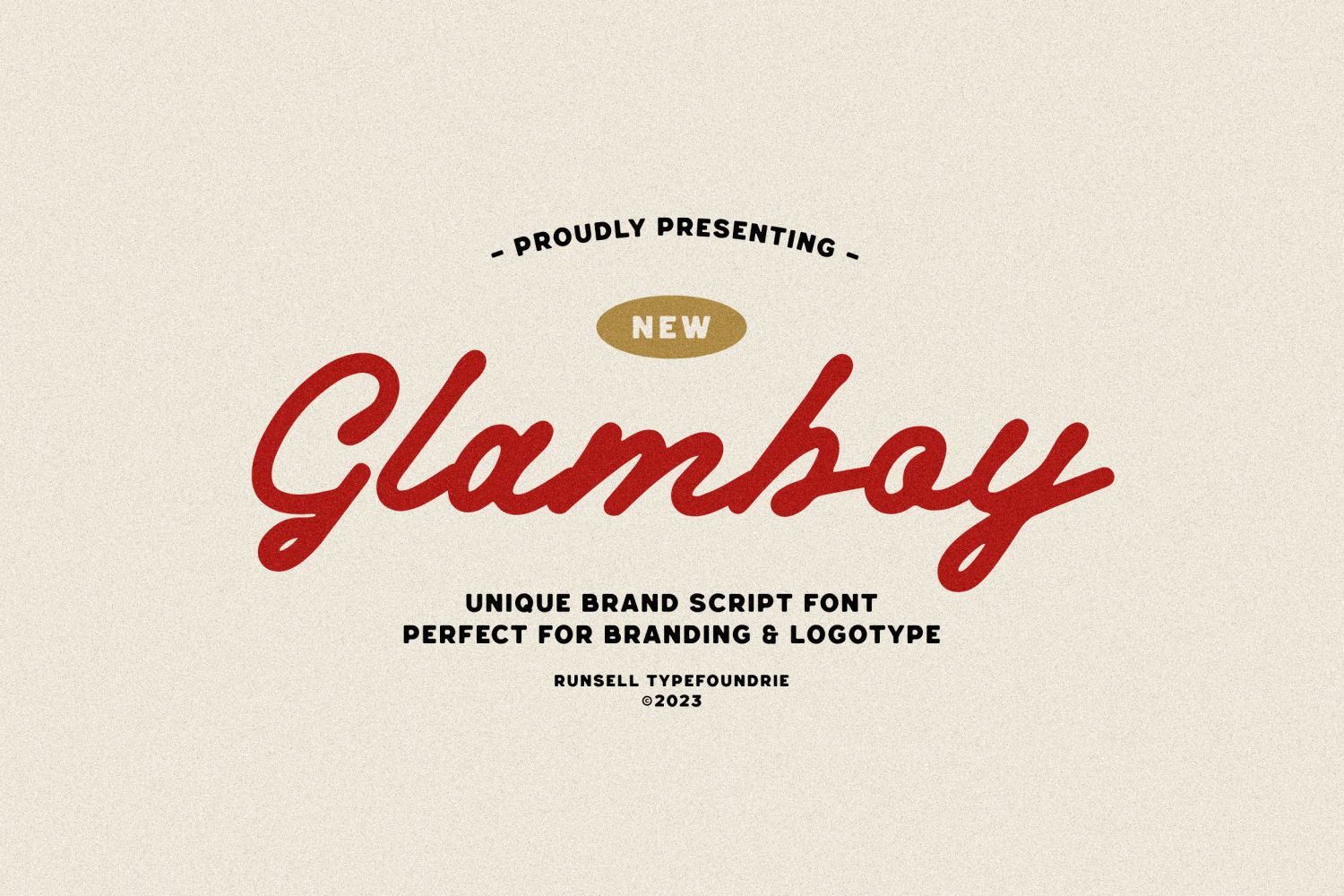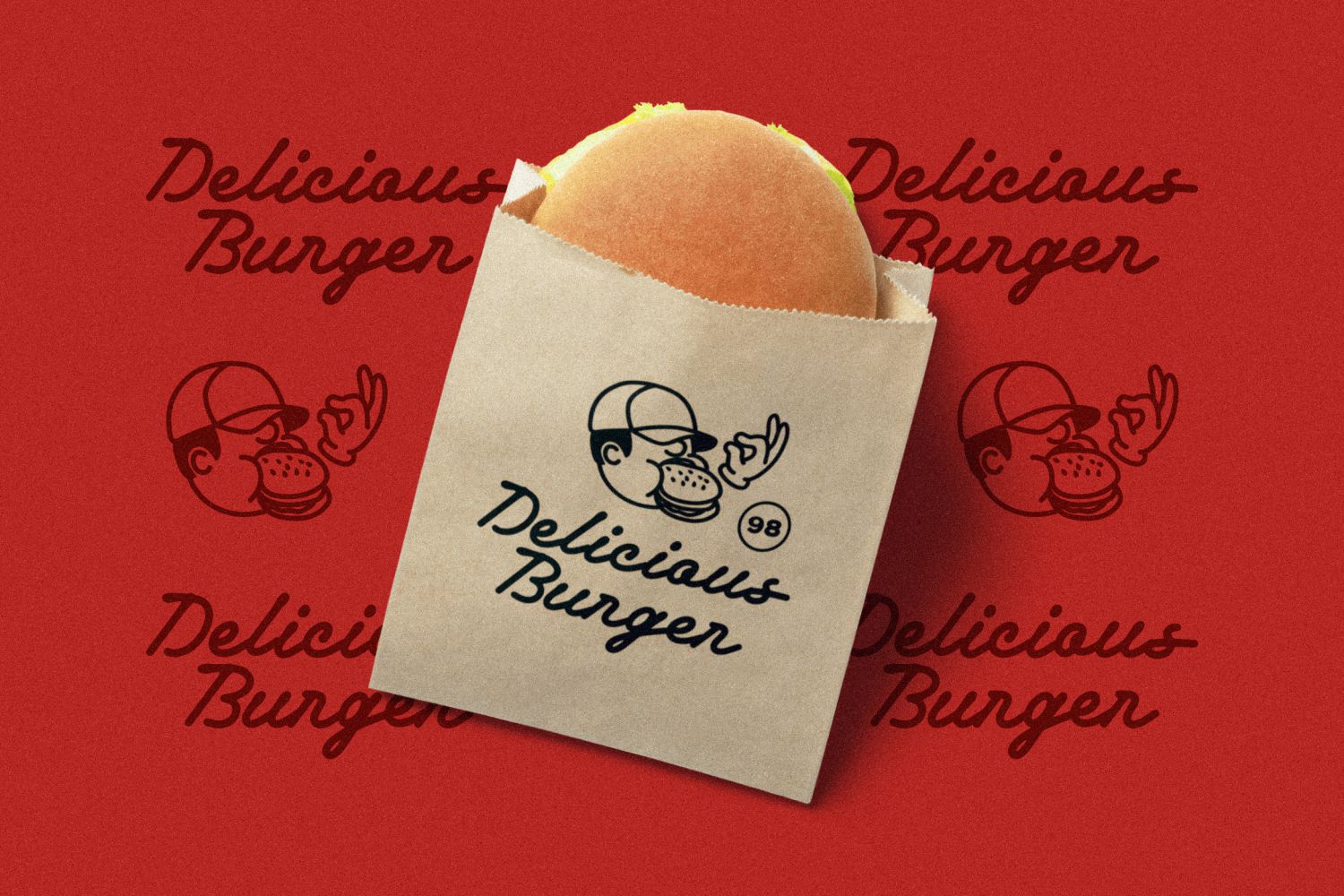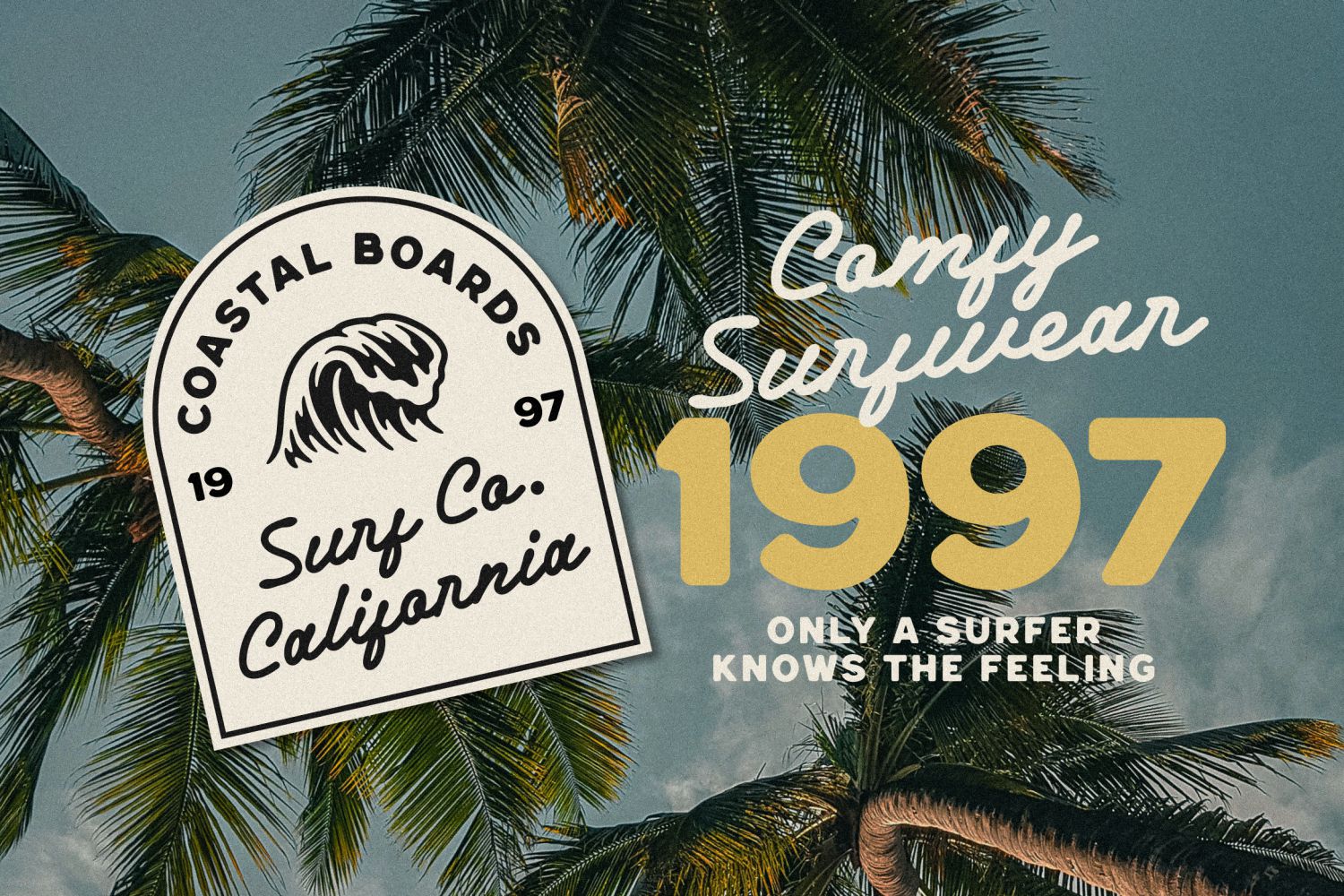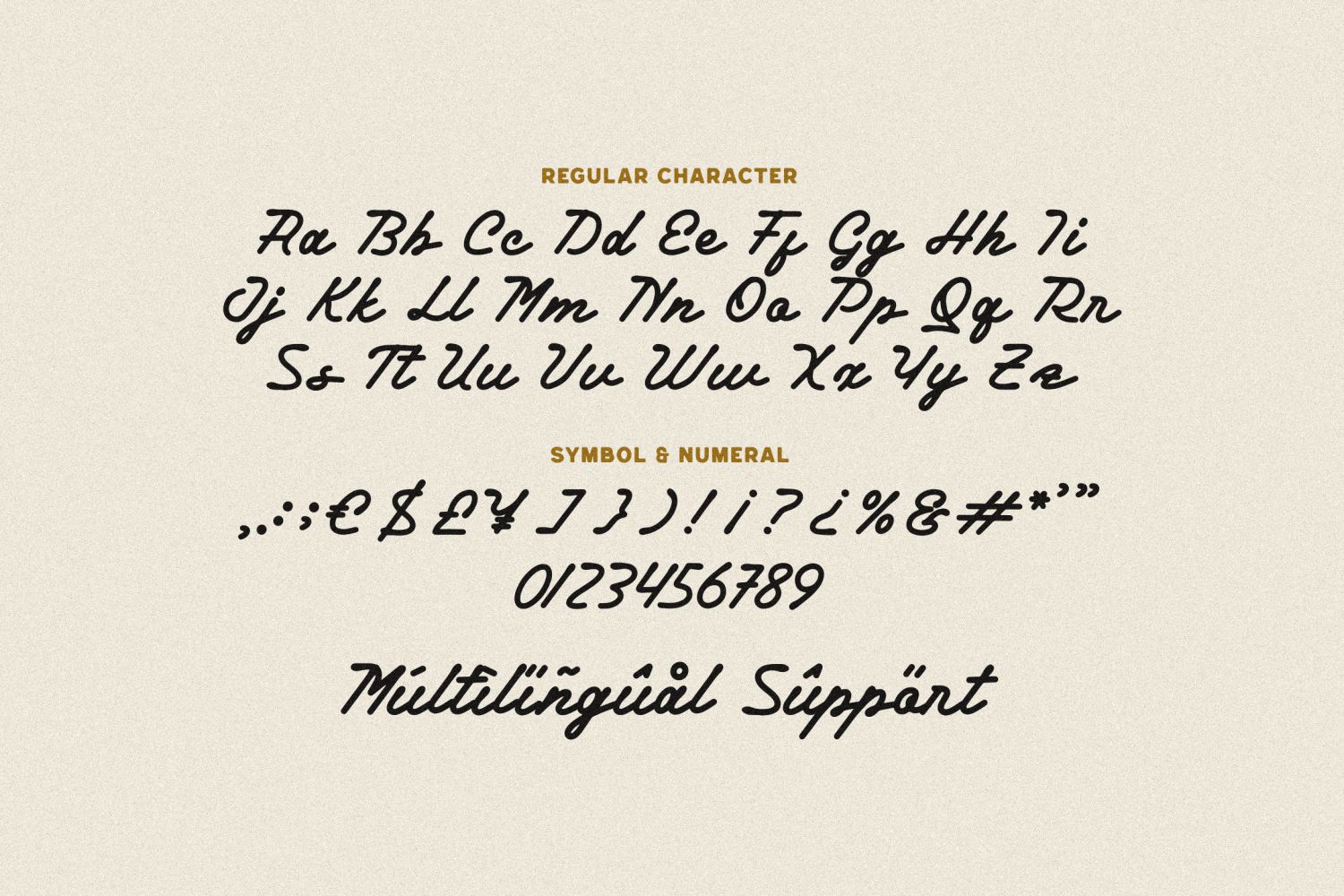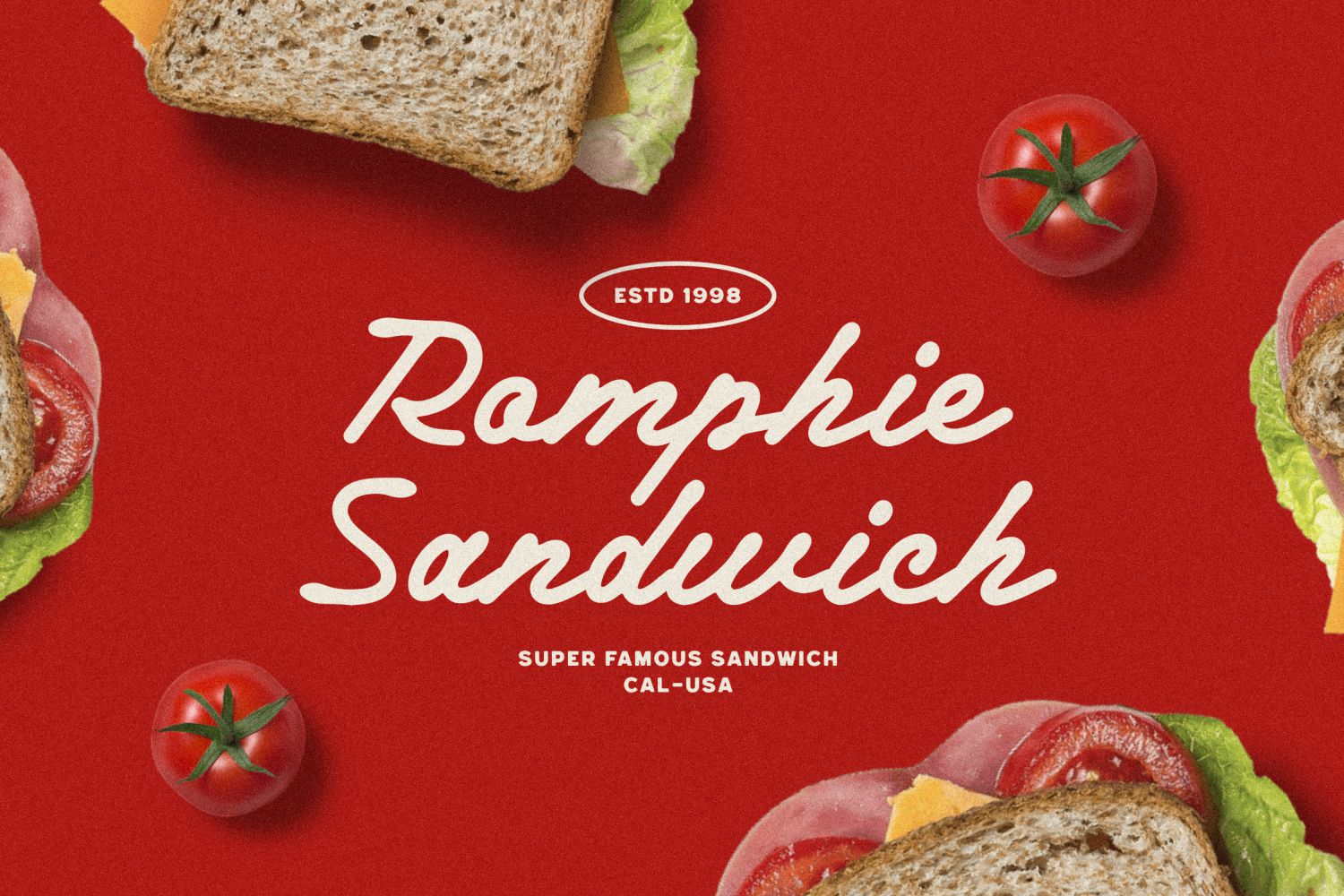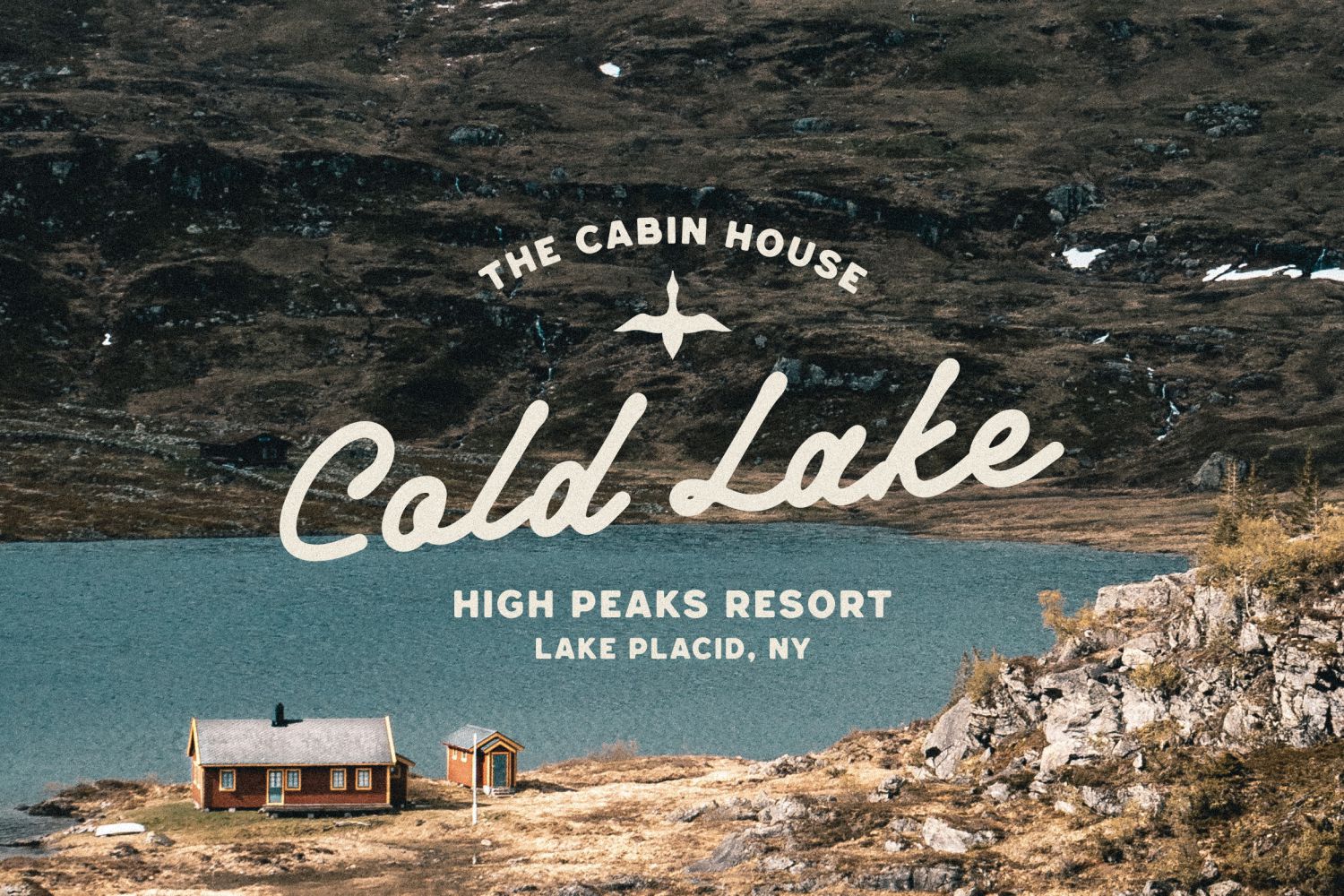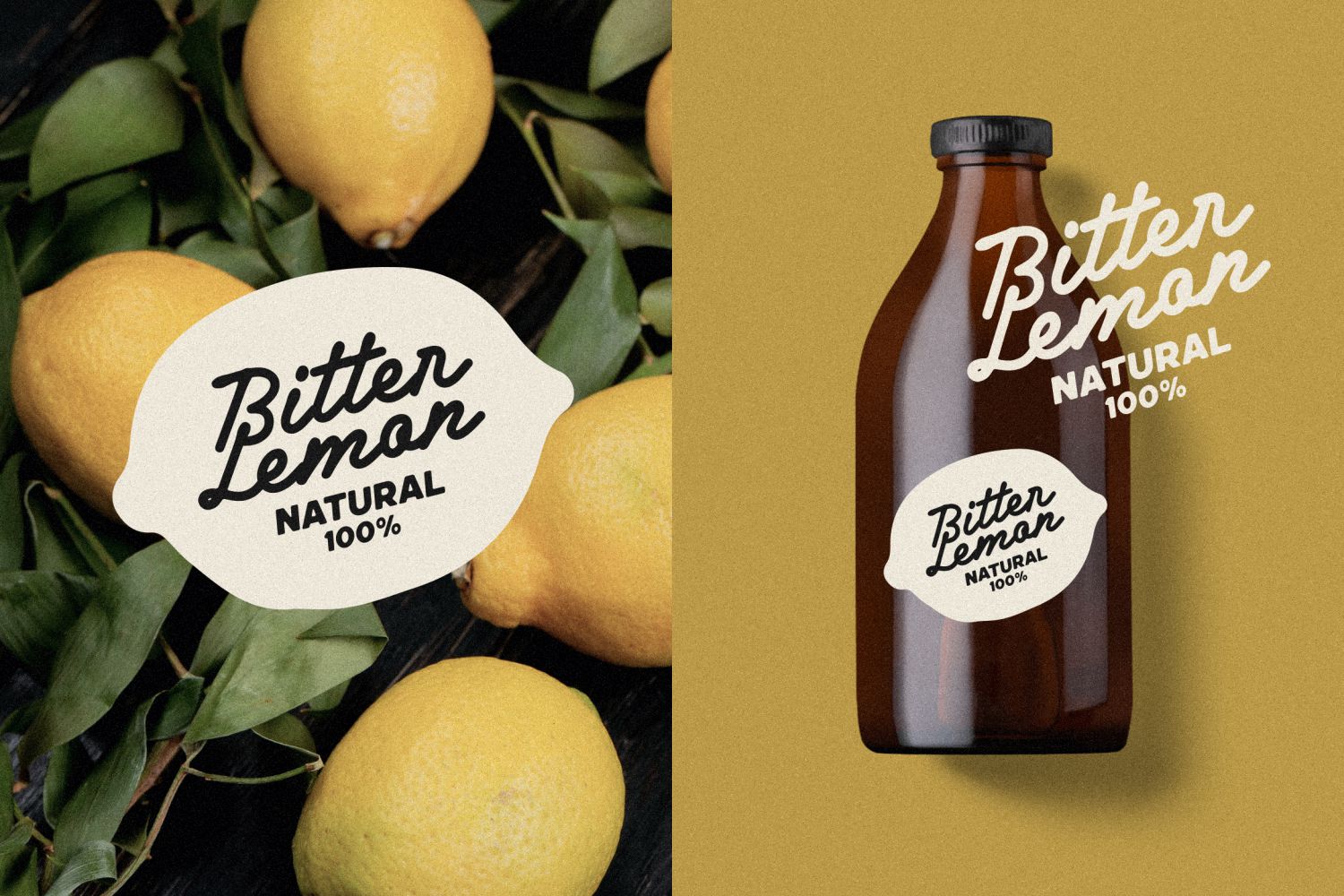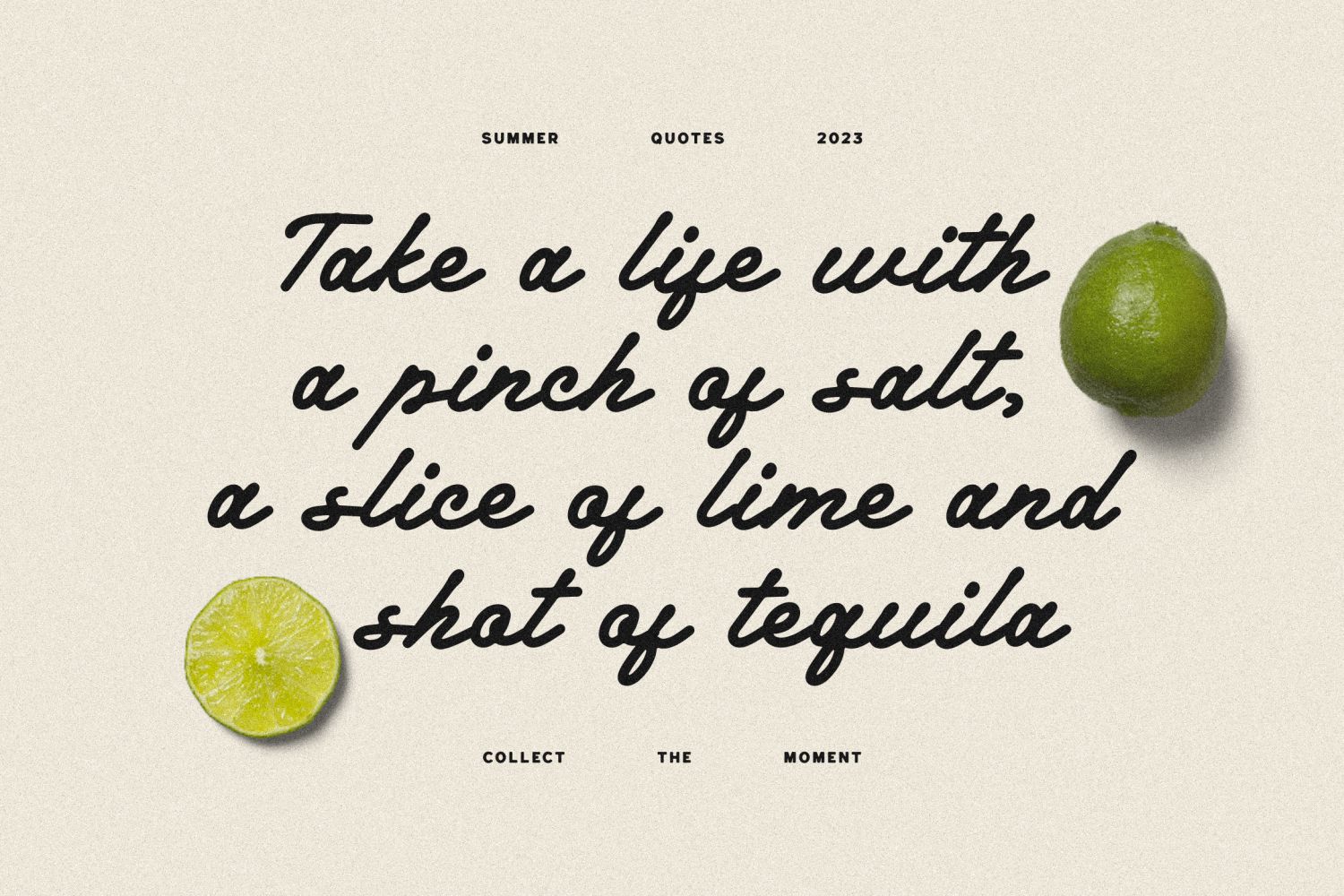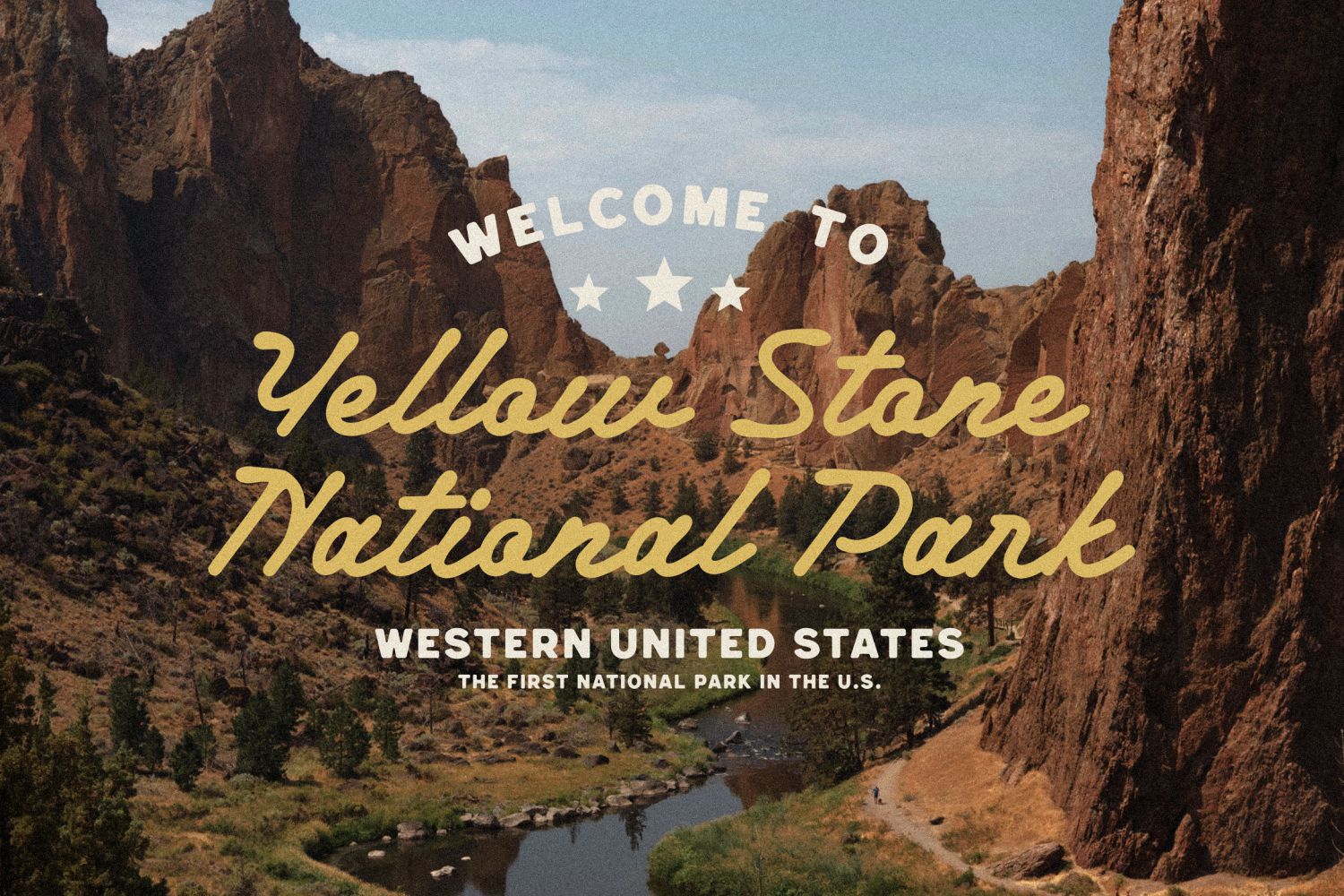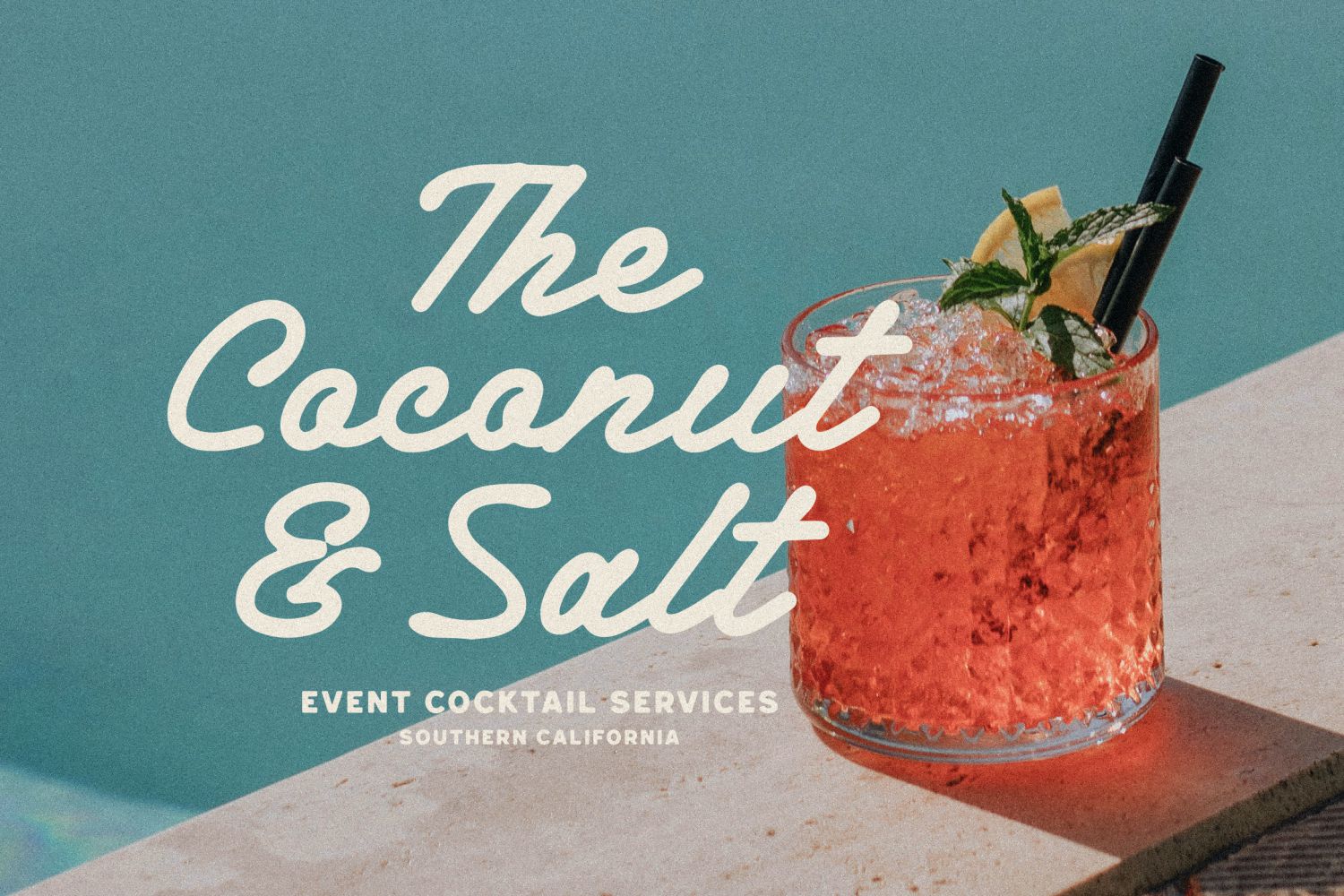
Glamboy
Glamboy is a stylish script font that brings a nostalgic charm and handcrafted elegance to your design. With its smooth, flowing letterforms and vintage appeal, Glamboy is ideal for creating standout logotypes, restaurant branding, product packaging, and retro-inspired visuals. Each stroke mimics the warmth of brush pen writing, making it feel organic and expressive.
Perfect for both display and identity use, Glamboy shines in food and beverage labels, travel-themed graphics, boutique signage, and editorial titles. Whether you’re working on rustic branding or modern-vintage projects, this font delivers versatility with a distinctive character that feels both casual and confident.